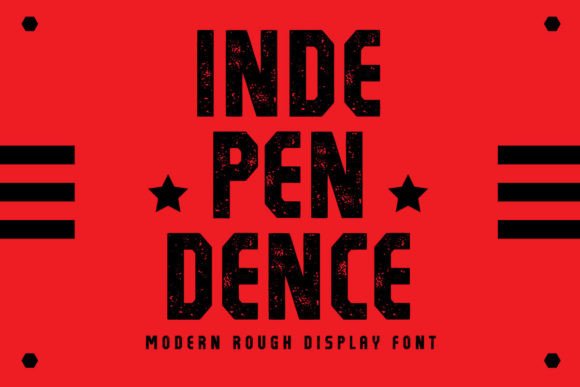
In a world saturated with monotonous fonts, embrace the renegade spirit of Independence, a font that embodies audacity and untamed creativity. Its rugged boldness is a testament to individuality, daring you to break free from conformity and make a statement. As a modern bold rough font, Independence refuses to be tamed, urging you to unleash your inner rebel and leave an unforgettable mark.
With Independence, your designs will exude strength and character. Picture a logo that commands attention with its raw edges, a T-shirt design that screams individuality, or a poster that ignites a revolution with its unapologetic presence. This font is your weapon against blandness, a tool to forge a visual identity that stands out from the crowd.
Not just limited to T-shirts, Independence thrives in a multitude of arenas, ready to conquer any design challenge you throw its way. Esport logos will radiate an air of unyielding determination, band logos will embody the untamed spirit of rock 'n' roll, and championship logos will evoke the thrill of victory.
But Independence's talents extend far beyond the digital realm. In the realm of clothing, this font reigns supreme. Its rough-hewn texture adds a touch of rugged sophistication, transforming everyday garments into statements of defiance. Whether it's a military-inspired jacket or a fashion-forward dress, Independence elevates your style and sets you apart from the masses.
So, if you seek a font that embodies defiance, a font that empowers you to make a statement, a font that will etch your designs into the minds of all who behold them, then Independence is your destined companion. Embrace the renegade spirit, download this extraordinary font, and embark on a creative journey that will leave the world in awe.